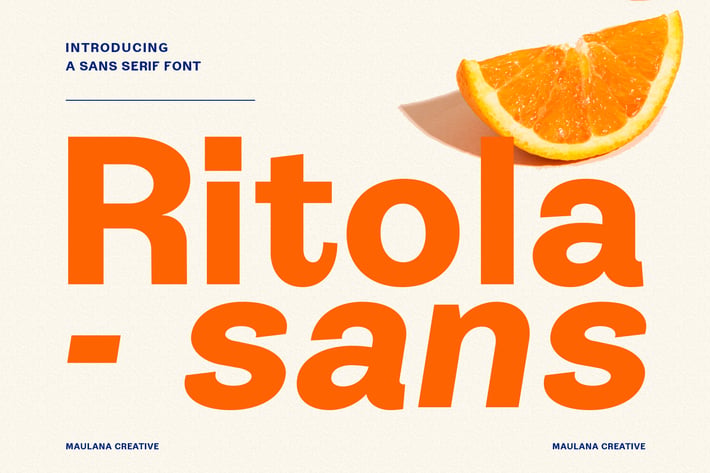
Ritola Sans Display Font
Ritola is a display sans serif font. With regular stroke, fun character with a bit of ligatures and alternates. To give you an extra creative work. Ritola font support multilingual more than 100+ language. This font is good for logo design, Social media, Movie Titles, Books Titles, a short text even a long text letter and good for your secondary text font with sans or serif. Make a stunning work with Ritola font.